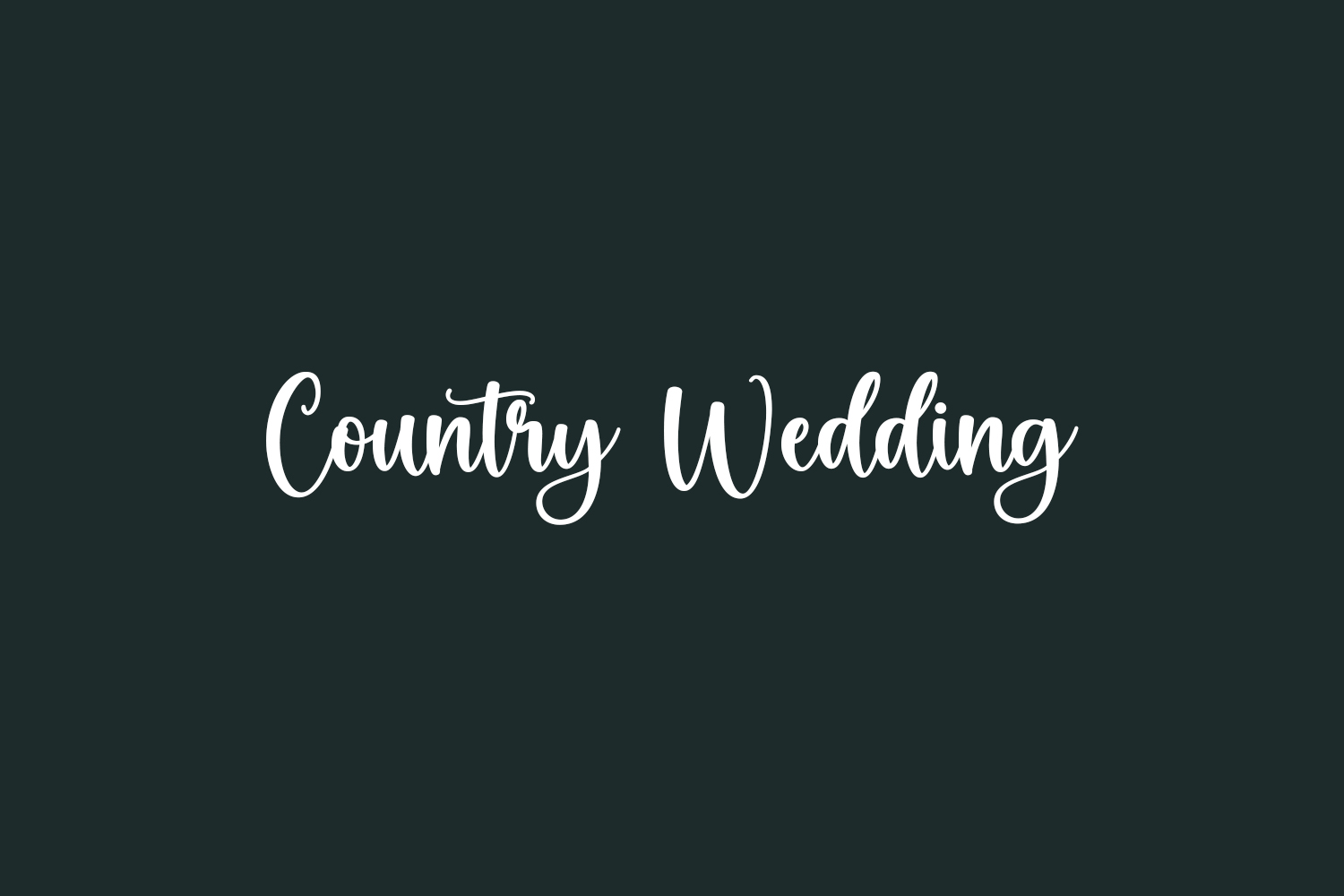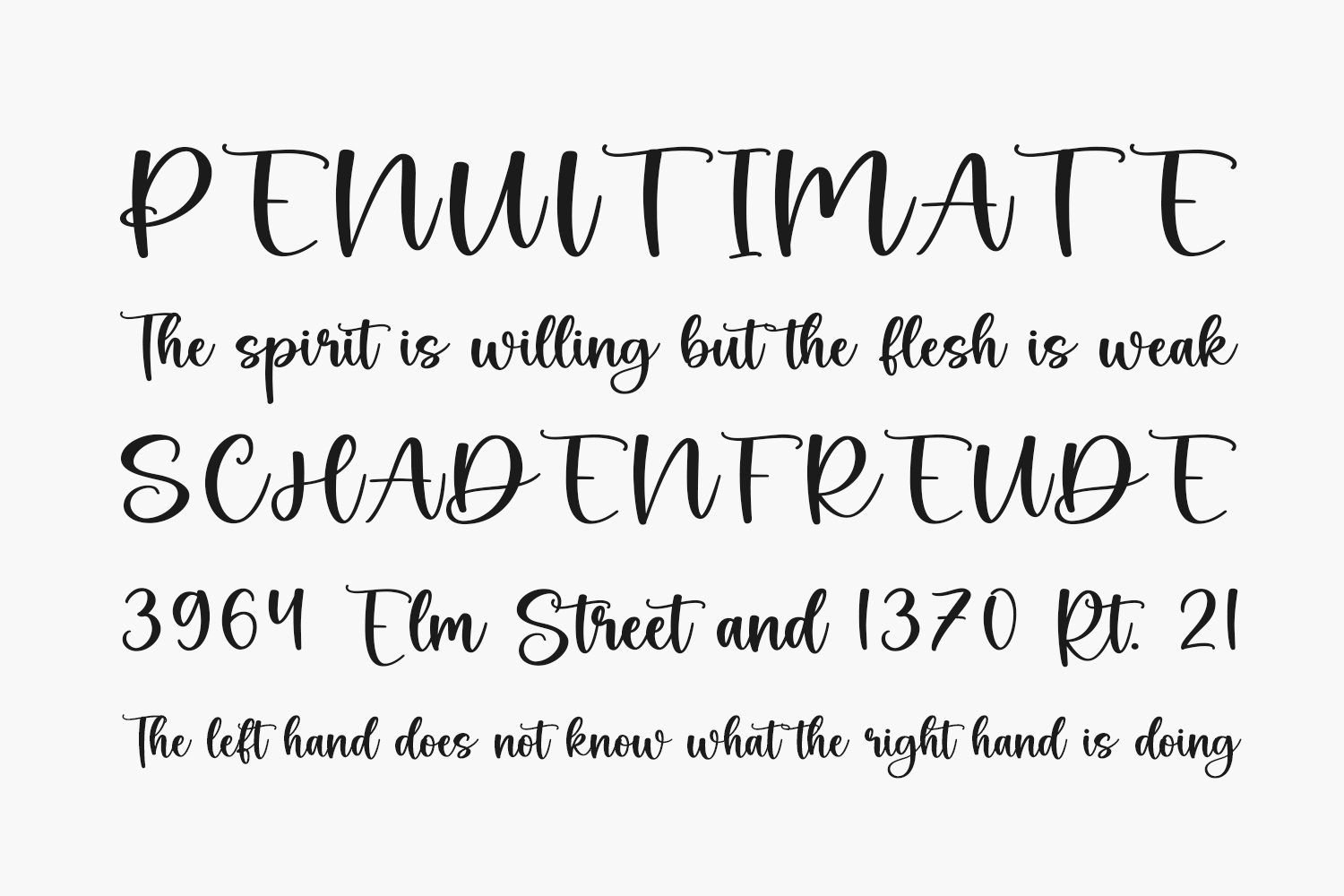
Country Wedding Free Font, a graceful and polished script font, exudes sophistication and elegance. With its stylish characters, this font seamlessly complements any project, adding a touch of refined charm to your designs. Elevate your creations with the timeless appeal of Country Wedding. Download the font for free if you need it for personal use or purchase the full version for commercial use.